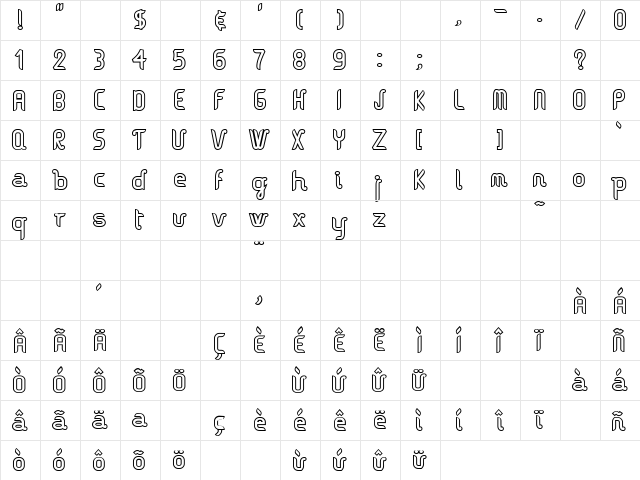
Vague Outline Font Preview
Vague Outline
Vague Outline Font Details
| Style | Outline |
Design Context for Vague Typeface
Vague is built around its visual character rather than neutral utility — its distinctive forms are designed to make an impression at display sizes.